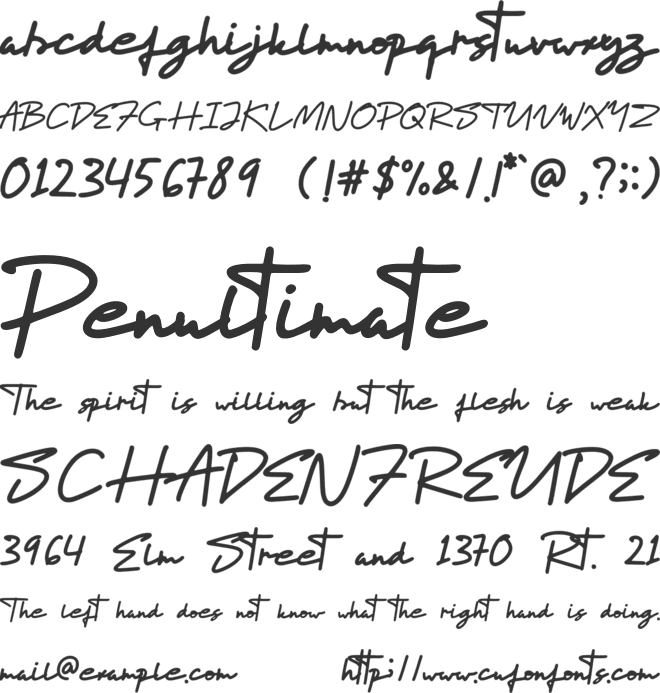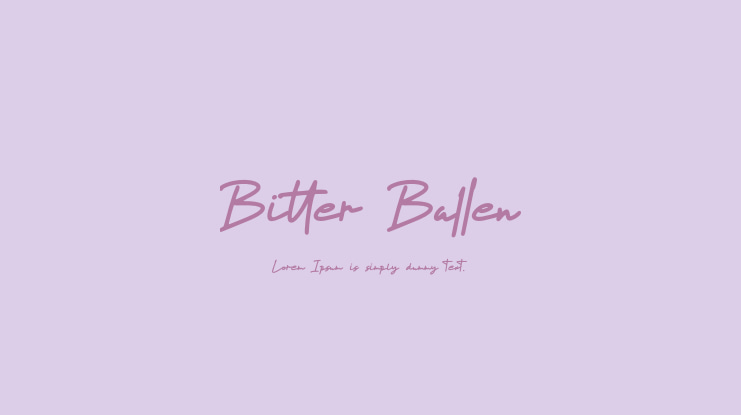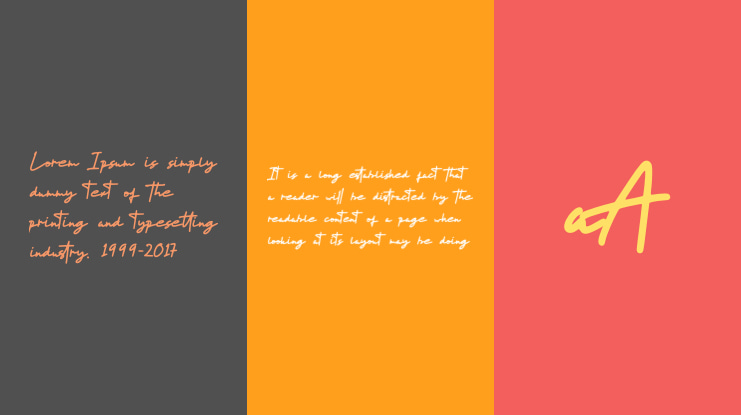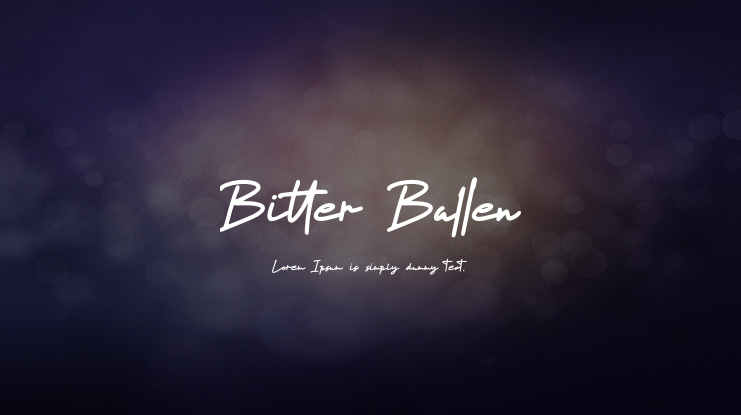
Bitter Ballen Font
Proudly Present, Bitter Ballen
Bitter Ballen is a Signature Monoline Font
Bitter Ballen is perfect for product packaging, branding project, megazine, social media, wedding, or just used to express words above the background.